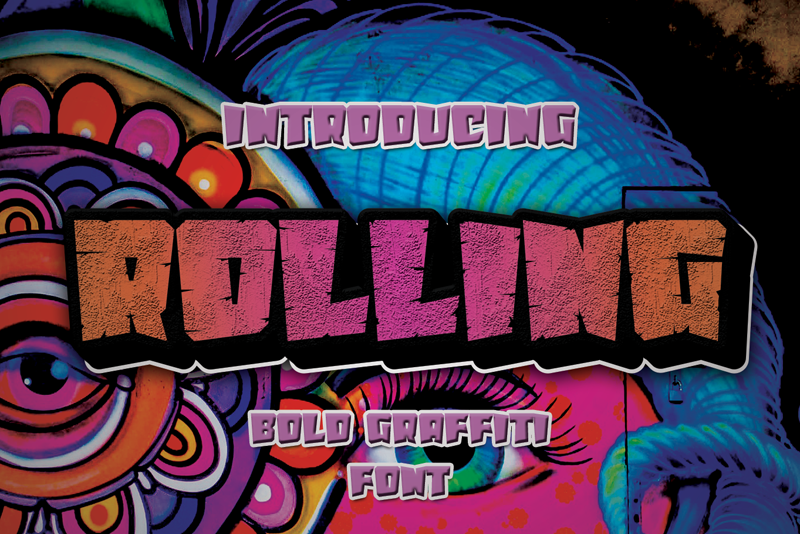
Preview and download Rolling Font. Created by Erik Luluk in Fancy Cartoon styles with Free for personal use license.
Rolling is a cool, unique, and quirky display font featuring bold and daring characters for a spectacular look! Add this chunky lettered font to your designs, and notice how it makes them come alive! Attention : Rolling handwriting Font is prohibited to use this font for commercial purposes or for profit without the permission of the author/admin, without being known to use this font without permission, will be subject to sanctions 5x the specified price. This font is used only for demos (Demo license) If you want to use this font for commercial use please contact email: erikluluk0@gmail.com or click the link below: https://www.creativefabrica.com/product/rolling/ref/745146/ If you want to see more other fonts, please click:https://www.creativefabrica.com/designer/erik-studio/ref/745146/ Any donations are very appreciated. Paypal account for donation: https://paypal.me/eriksupriyant thanks. |